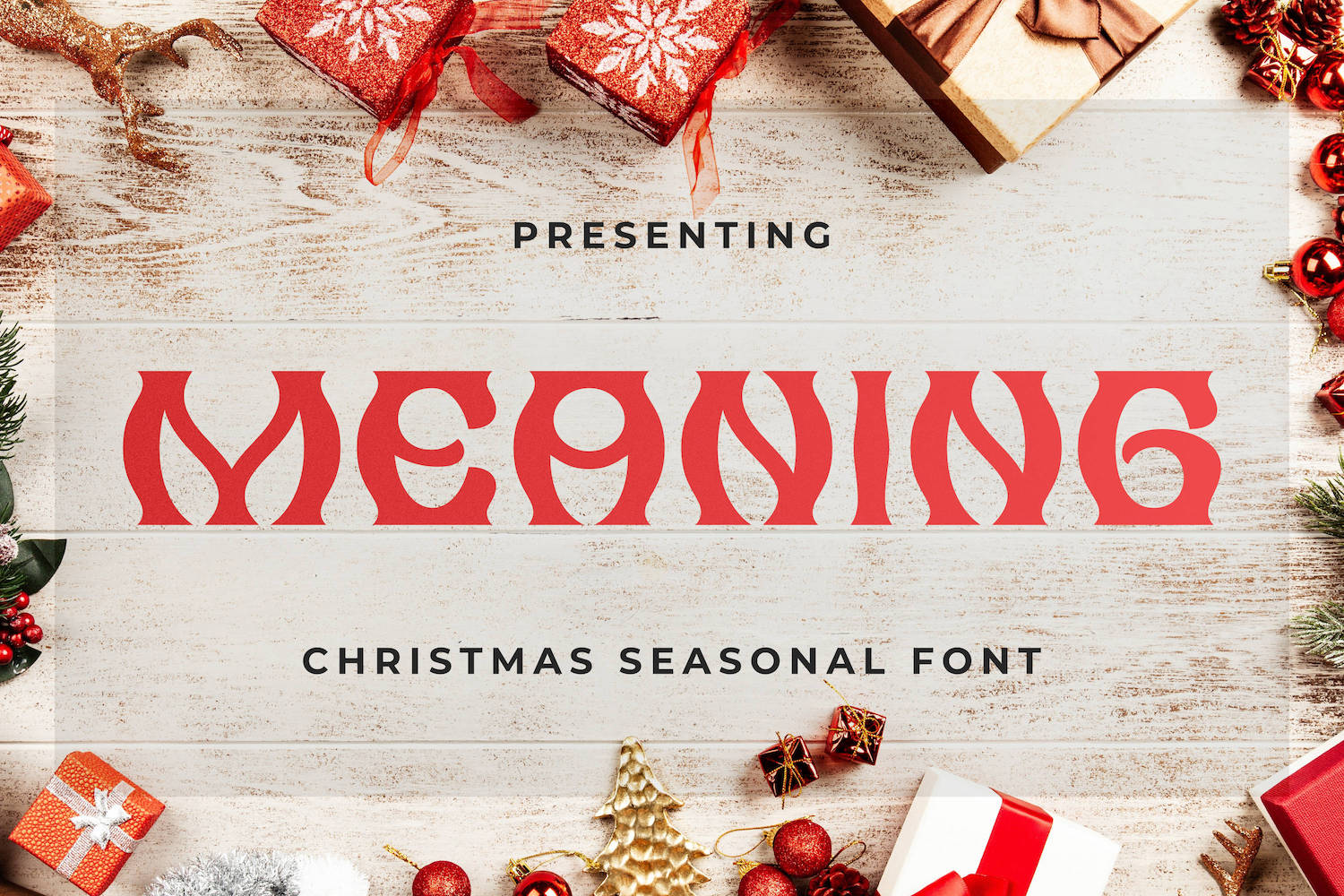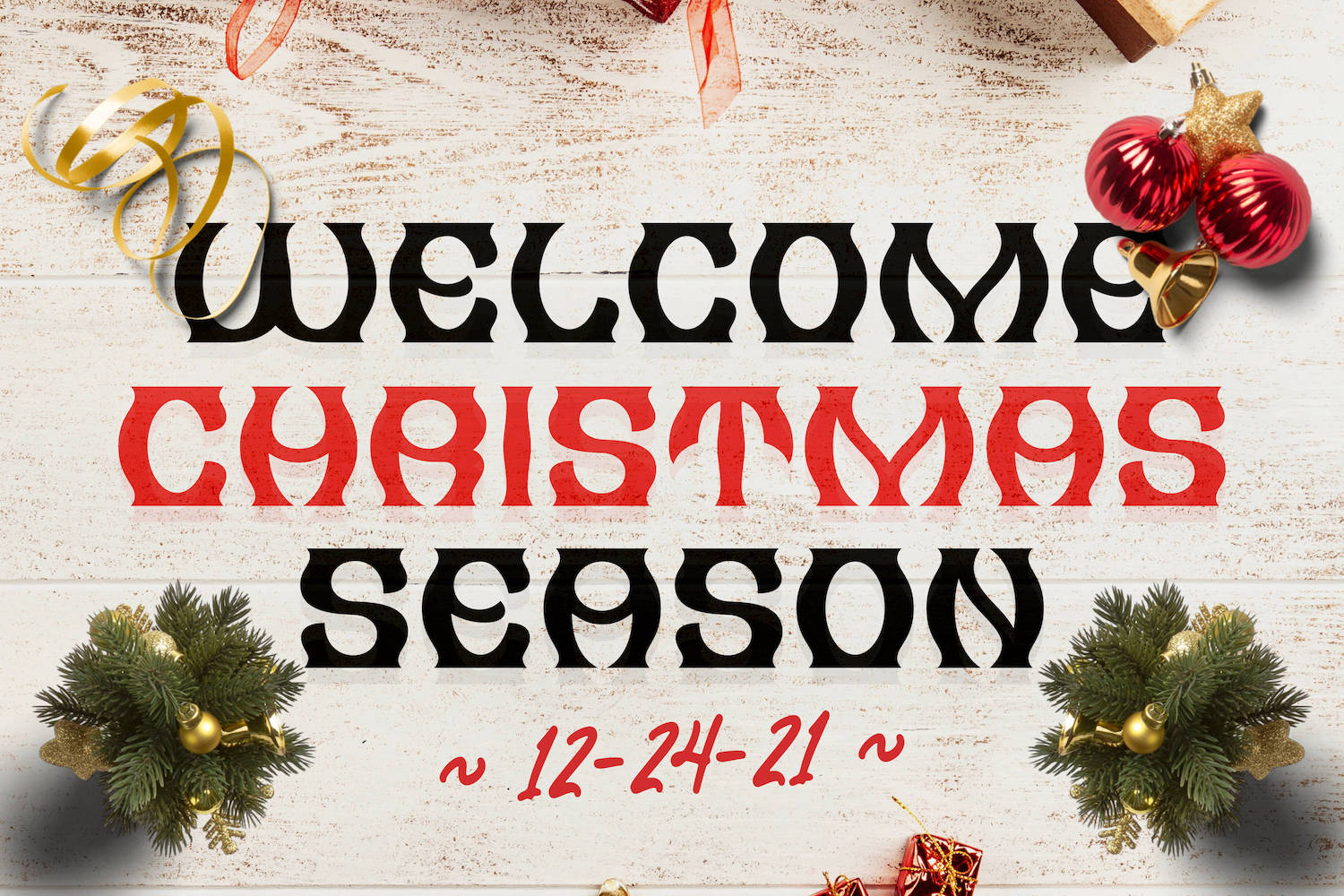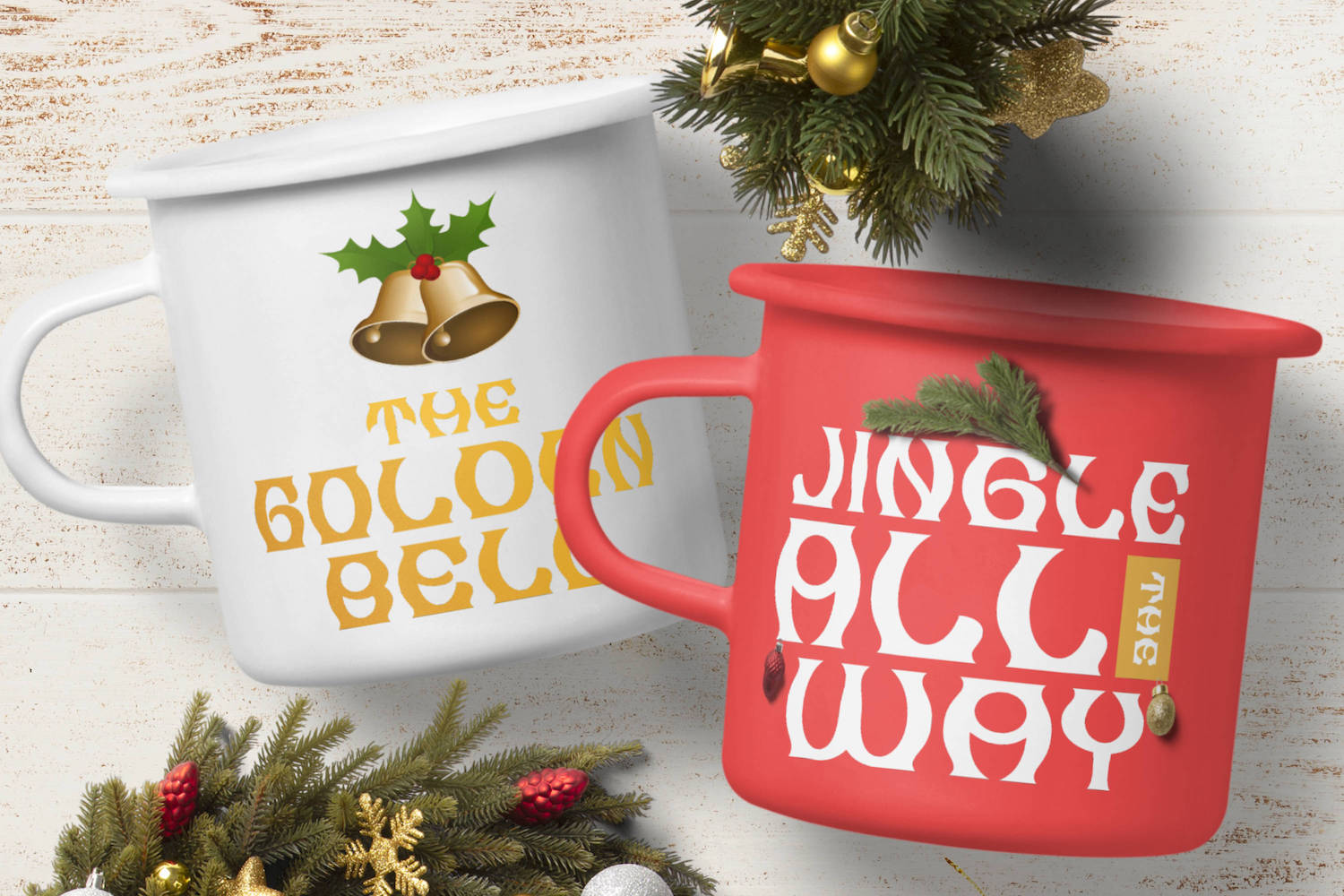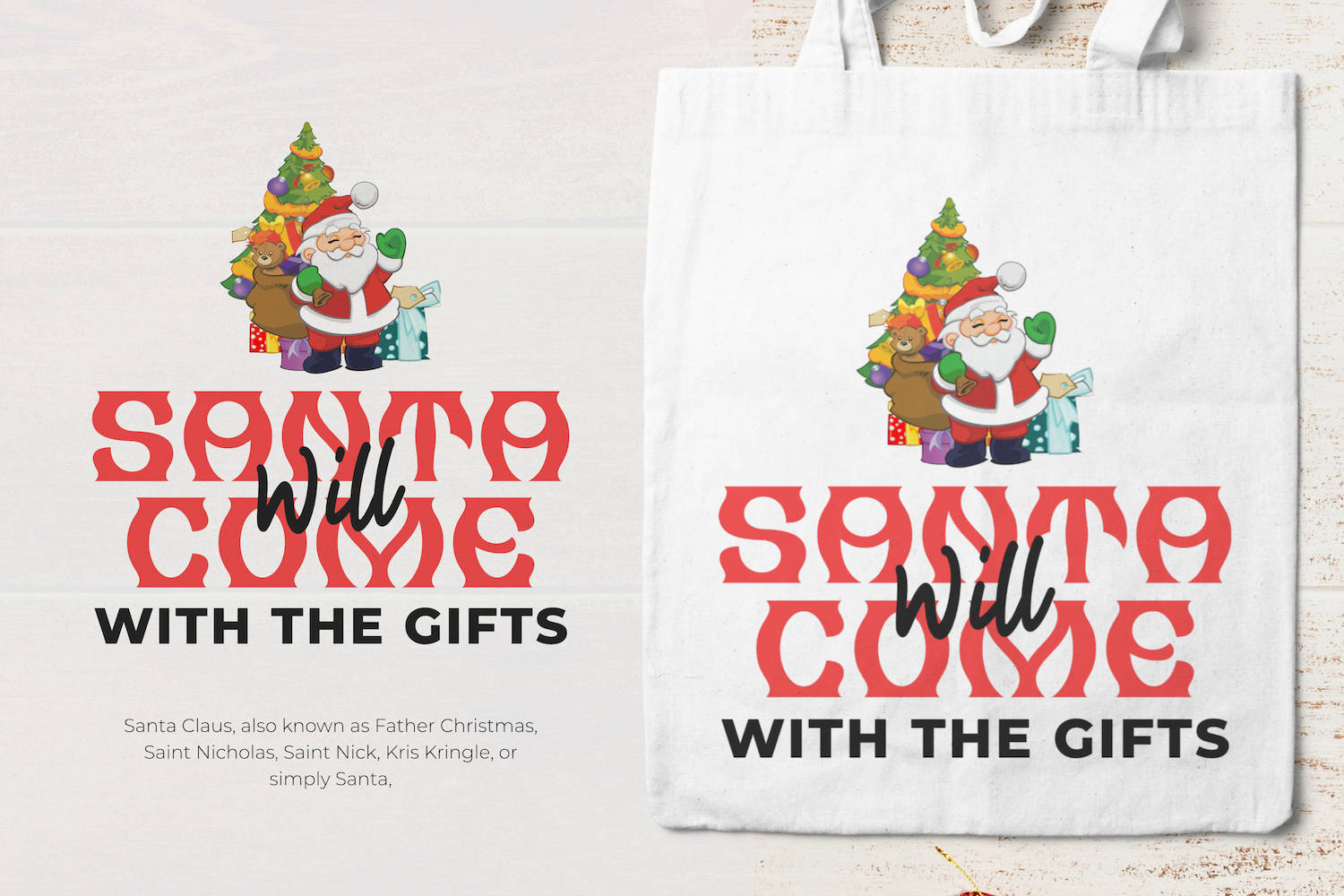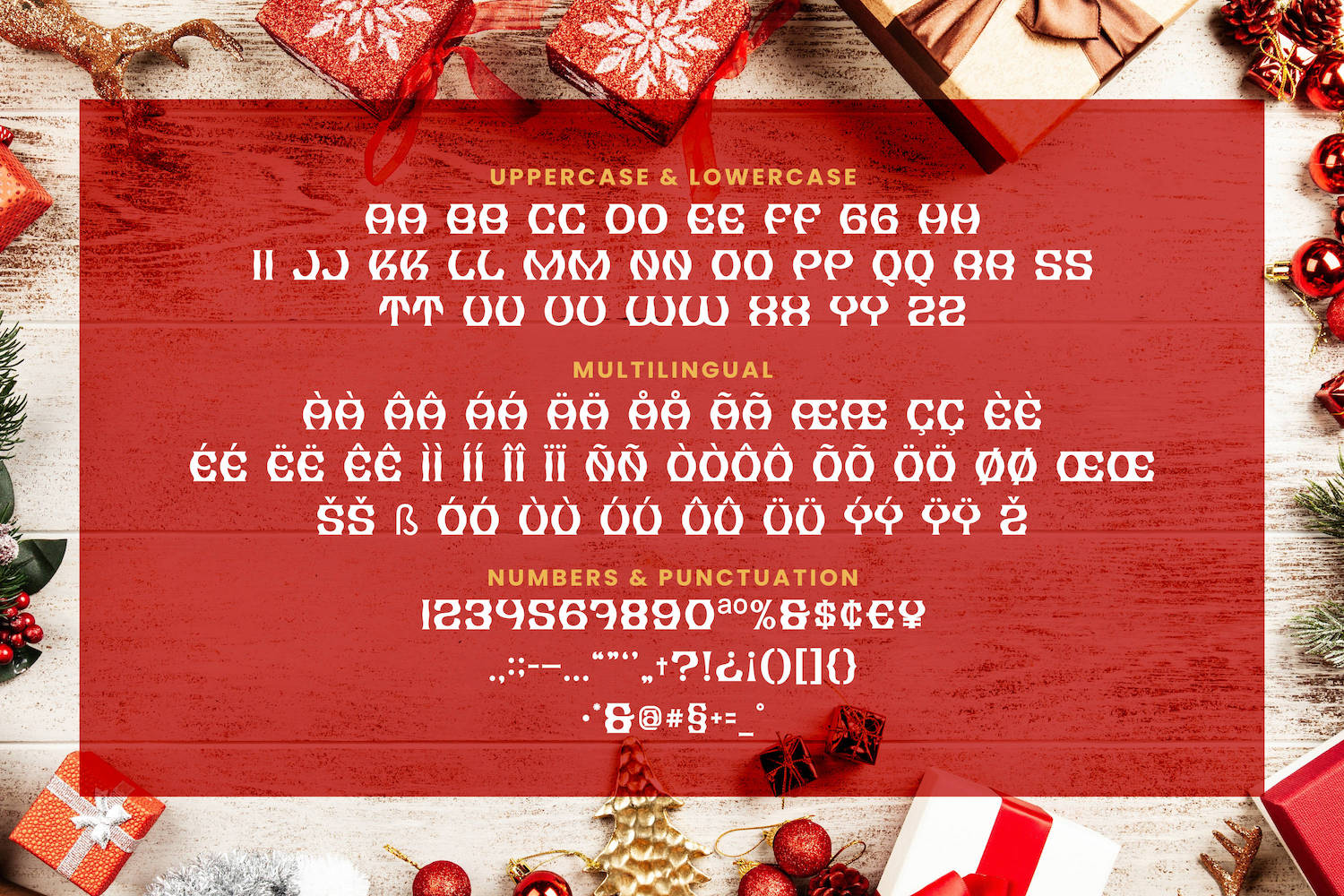
Meaning is a bold and unique Christmas seasonal font designed to bring festive flair to your holiday projects. With its stylish and curvy characters, this typeface radiates joyful energy while maintaining strong readability. Whether you’re designing greeting cards, promotional banners, gift tags, or cozy product packaging, Meaning will infuse your designs with the warmth and cheer of the holiday season.
This font includes uppercase and lowercase letters, multilingual characters, numbers, and a wide range of punctuation marks, making it a versatile choice for various design needs. Its handcrafted charm and decorative touches make it perfect for festive branding, social media graphics, mugs, and tote bags. Meaning is not just a font, it’s a celebration of Christmas spirit in every letter.
Meaning